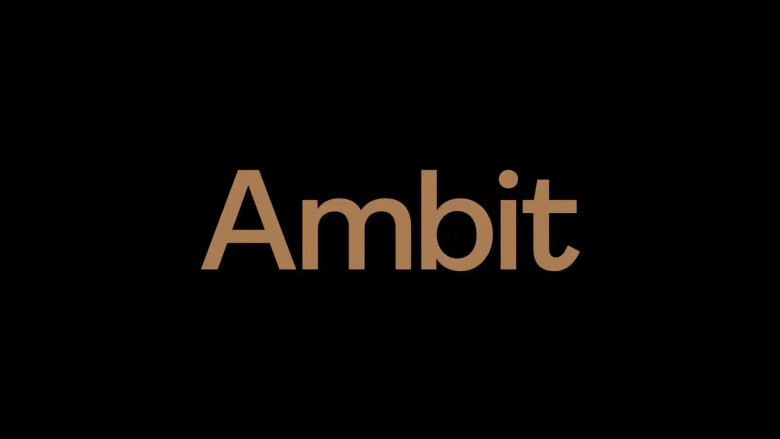
Ambit Font Family
Ambit Font
Ambit is an eccentric and unique sans serif font inspired by early grotesques, but adapted for the 21st century. Its most striking details are the curly “f” and “r” (don’t worry, there are simple alternate versions available via Stylistic Set 02). Shapes like “c”, “C”, “s” and “S” seem to curl in onto themselves, giving this type family a very distinctive look. Also noteworthy are the “R” and “K”, which feature curly legs.
Ambit features 7 weights (from Thin to Black), each with oblique italics. Featuring a Latin Extended character set, Ambit covers most languages written with the Latin script. OpenType features include ligatures and a full range of lining and old-style numerals, each with tabular versions. Each weight also comes with case-sensitive punctuation and three stylistic sets giving access to alternate letter shapes.
The first set includes single-storey “a”, ”g” and an alternate “y”; the second set gives access to less curly versions of “f” and “r”, which might be more appropriate for setting text at small sizes; the third set features an alternate “Q” design. With its distinctive look, Ambit is perfect for branding, packaging, and editorial projects, both printed and online.
Ambit Sans Serif Font Family